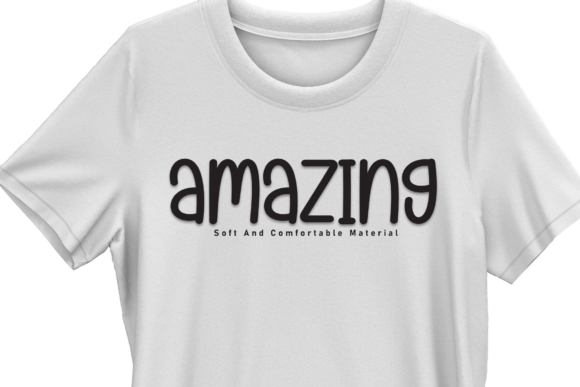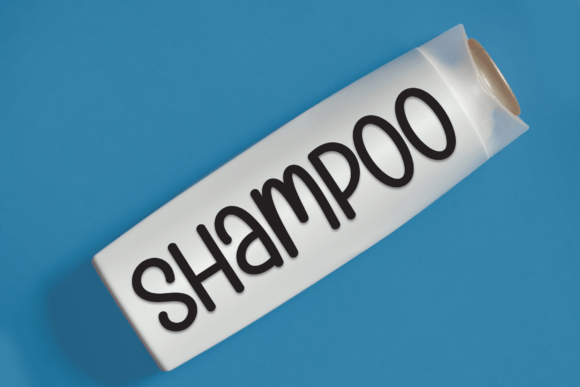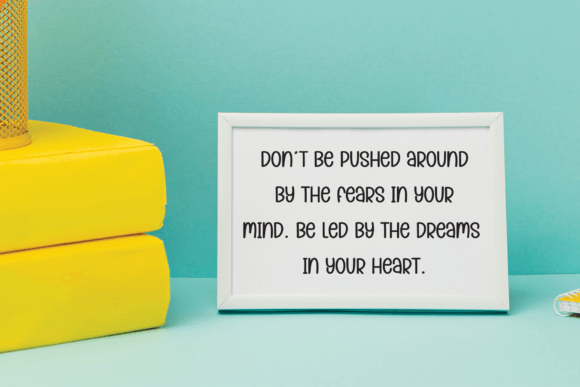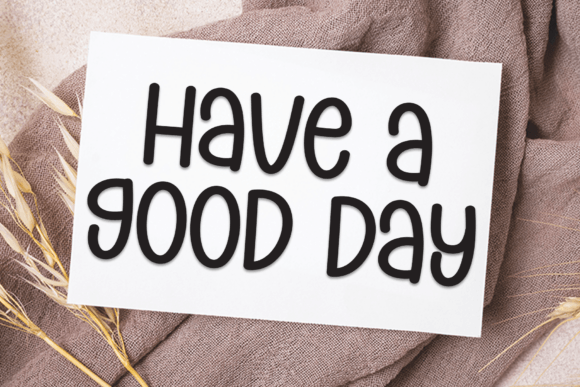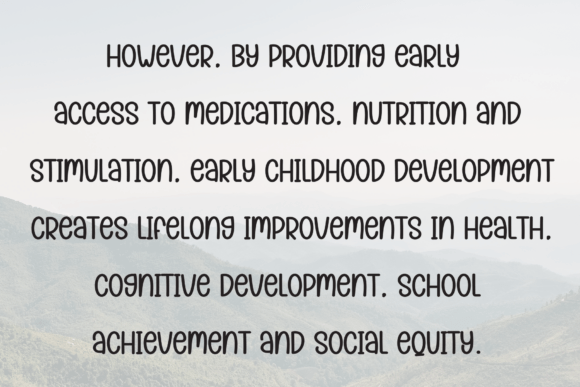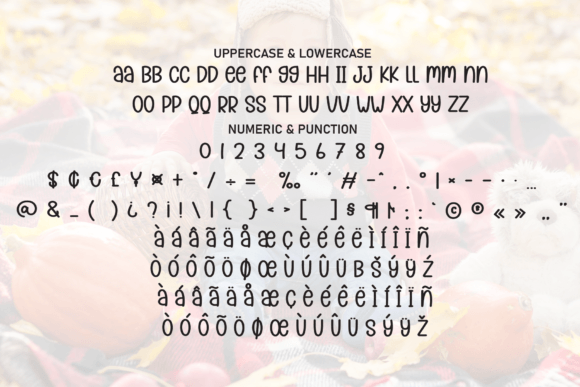
Baby Pumpkin Font: Add a Sweet and Friendly Touch to Your Designs
Are you looking for a font that can add a playful and endearing touch to your designs? Look no further than the Baby Pumpkin Font! This handwritten display font is designed to bring a sweet and friendly vibe to your creations, making it perfect for a variety of design projects. In this article, we’ll take a closer look at the Baby Pumpkin Font, its features, and how you can use it to elevate your designs.
What is Baby Pumpkin Font?
Baby Pumpkin Font is a carefully crafted handwritten display font that exudes a playful and charming personality. Its unique and whimsical design makes it an excellent choice for designers and crafters who want to add a personal touch to their work. The font’s playful curves and lines are sure to capture the attention of your audience and leave a lasting impression.
Features of Baby Pumpkin Font
The Baby Pumpkin Font comes with a range of features that make it an excellent addition to your design toolkit. Some of its notable features include:
- Handwritten design: The font’s handwritten design gives it a personal and unique touch, making it perfect for designs that require a human touch.
- Playful personality: The font’s playful curves and lines add a fun-filled touch to your designs, making them more engaging and attention-grabbing.
- Versatile: The Baby Pumpkin Font is versatile and can be used for a variety of design projects, from wedding invitations and greeting cards to posters and social media graphics.
Use Cases for Baby Pumpkin Font
The Baby Pumpkin Font is perfect for a variety of design projects, including:
- Wedding invitations: Add a sweet and romantic touch to your wedding invitations with the Baby Pumpkin Font.
- Greeting cards: The font’s playful personality makes it perfect for greeting cards, adding a fun-filled touch to your designs.
- Posters and flyers: Use the Baby Pumpkin Font to create eye-catching posters and flyers that grab the attention of your audience.
- Social media graphics: Add a playful touch to your social media graphics with the Baby Pumpkin Font, making them more engaging and shareable.
Benefits of Using Baby Pumpkin Font
Using the Baby Pumpkin Font in your designs comes with a range of benefits, including:
- Unique and personalized designs: The font’s handwritten design and playful personality help you create unique and personalized designs that stand out from the crowd.
- Increased engagement: The font’s playful and attention-grabbing design can help increase engagement with your audience, making them more likely to interact with your designs.
- Time-saving: The Baby Pumpkin Font is easy to use and comes with a range of features that make it easy to customize and edit, saving you time and effort.
Tips for Using Baby Pumpkin Font
Here are some tips for using the Baby Pumpkin Font in your designs:
- Pair it with other fonts: Experiment with pairing the Baby Pumpkin Font with other fonts to create a unique and visually appealing design.
- Use it for headings and titles: The font’s playful personality makes it perfect for headings and titles, adding a fun-filled touch to your designs.
- Experiment with colors: The Baby Pumpkin Font comes in a range of colors, so experiment with different colors to find the one that works best for your design.
In conclusion, the Baby Pumpkin Font is a versatile and playful font that can add a sweet and friendly touch to your designs. Its unique and handwritten design makes it perfect for a variety of design projects, from wedding invitations and greeting cards to posters and social media graphics. With its range of features and benefits, the Baby Pumpkin Font is an excellent addition to your design toolkit.